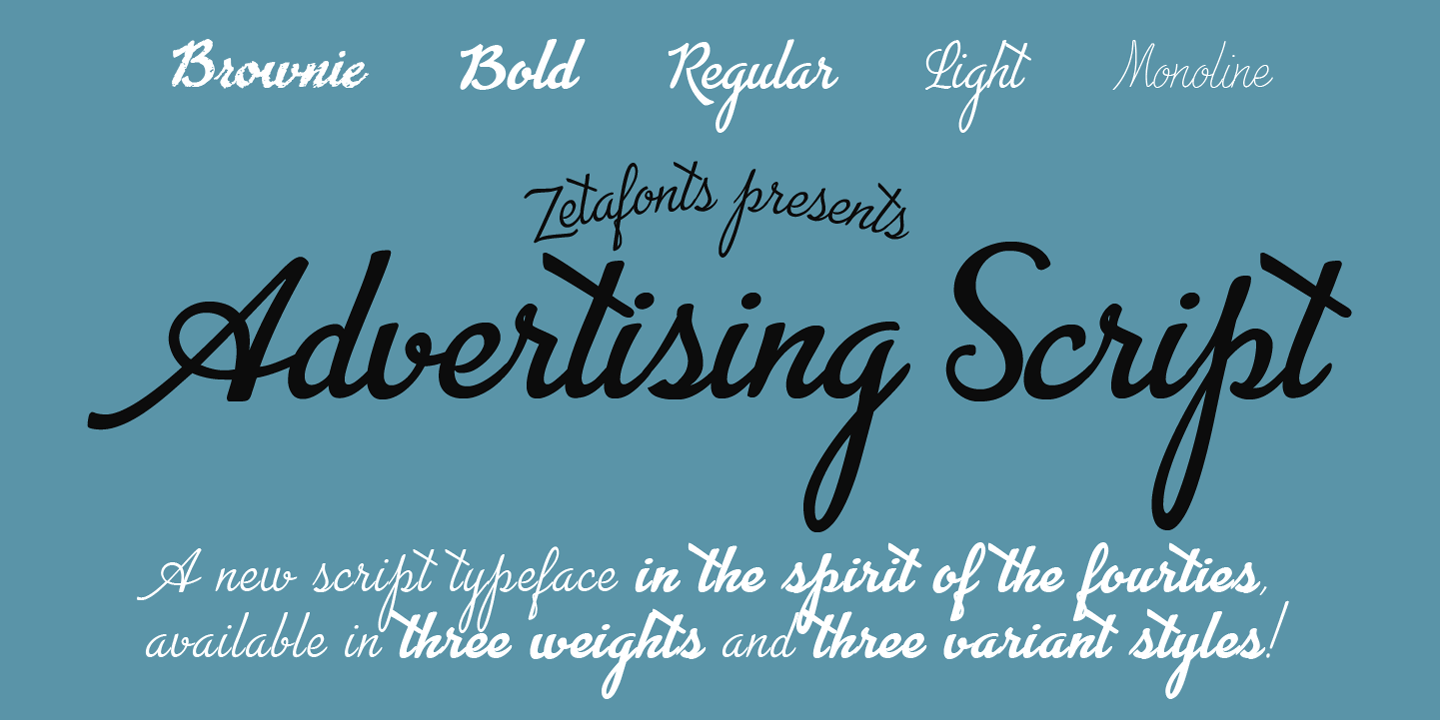
The Advertising Script Font is perfect for vintage advertising campaigns, retro brand revivals, classic poster designs, nostalgic marketing materials, traditional signage projects, authentic period reproductions, heritage brand communications, timeless logo designs, and compelling advertising projects that require elegant script typography with commercial persuasion power and vintage advertising authenticity.
What makes the Advertising Script Font so exciting is its masterful ability to capture the golden age of American advertising artistry and the persuasive elegance that defined mid-century commercial design excellence. This remarkable typeface embodies the sophisticated craftsmanship of traditional advertising lettering, featuring flowing script letterforms with commercial authority and refined character details that create an immediate sense of trustworthiness, quality, and the kind of compelling visual appeal that drove successful advertising campaigns during advertising's most creative and influential era. The font's commercial heritage and persuasive elegance make it the perfect choice for brands and marketing campaigns that seek to communicate established credibility, timeless appeal, and the proven effectiveness of classic advertising principles.
The Advertising Script Font family typically includes regular, bold, and decorative weights, along with commercial alternates and vintage advertising elements that provide marketing professionals with comprehensive tools for creating authentic vintage advertising branding systems and persuasive visual communications across various commercial applications.
Marketing agencies and heritage brands consistently choose Advertising Script Font Free Download for its unmatched ability to convey commercial authenticity and vintage advertising credibility. This distinguished typeface represents the perfect preservation of advertising industry typography traditions, offering marketing professionals a powerful tool for creating memorable campaigns that resonate with audiences who appreciate classic advertising artistry, established brand values, and the timeless appeal of well-crafted commercial communication. Whether you're developing retro brand campaigns, creating vintage-inspired marketing materials, designing heritage brand communications, or crafting nostalgic advertising graphics, this font delivers the commercial authority and vintage appeal that classic advertising communications require.
The elegantly crafted letterforms of the Advertising Script Font showcase traditional advertising proportions and commercial styling details that ensure maximum persuasive impact while maintaining excellent readability across various marketing applications. The font's authoritative character and vintage commercial appeal create immediate associations with established quality, proven effectiveness, and the fundamental advertising principles that built successful brands and memorable campaigns.
Vintage marketing specialists and heritage brand designers appreciate the font's comprehensive authenticity and commerce-focused design principles, which enable the creation of typography that genuinely represents advertising industry heritage without compromising historical accuracy or commercial effectiveness.
For businesses seeking to establish connections with advertising history and communicate proven commercial values through their visual identity, the Advertising Script Font provides an indispensable typography solution. Its commercial foundation and proven advertising appeal make it particularly suitable for heritage brands, vintage-inspired businesses, classic advertising agencies, and established companies that value advertising tradition and commercial authenticity.
The font's optimization for both traditional advertising print materials and modern vintage marketing platforms ensures consistent commercial impact across all advertising communication channels, while its timeless commercial aesthetic provides enduring value for marketing-focused brand systems requiring typography that authentically represents the continuing relevance of classic advertising principles and the enduring power of well-crafted commercial communication in today's competitive advertising marketplace.